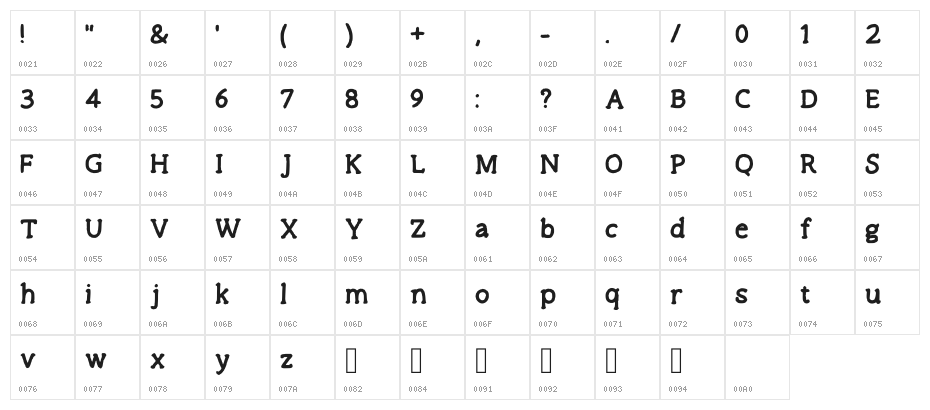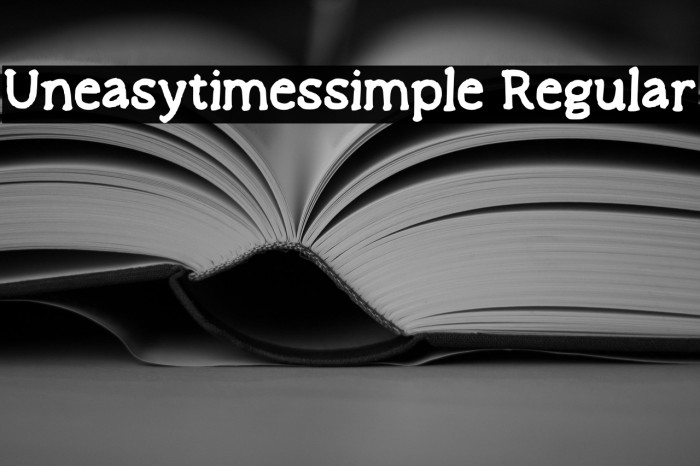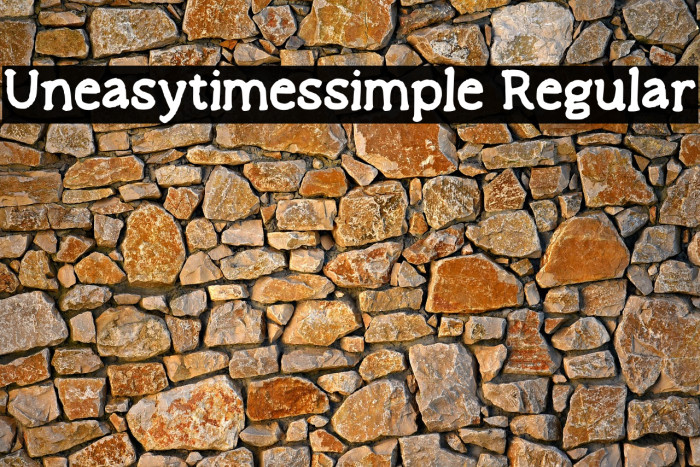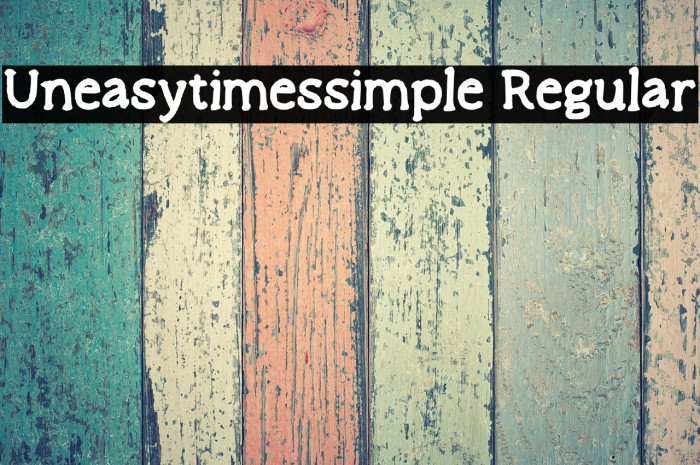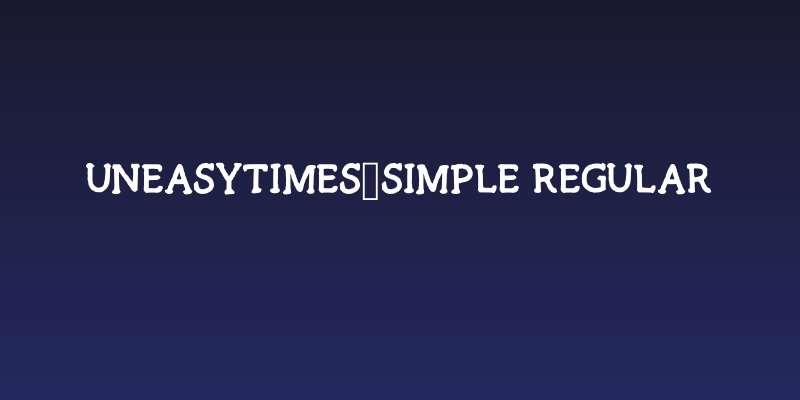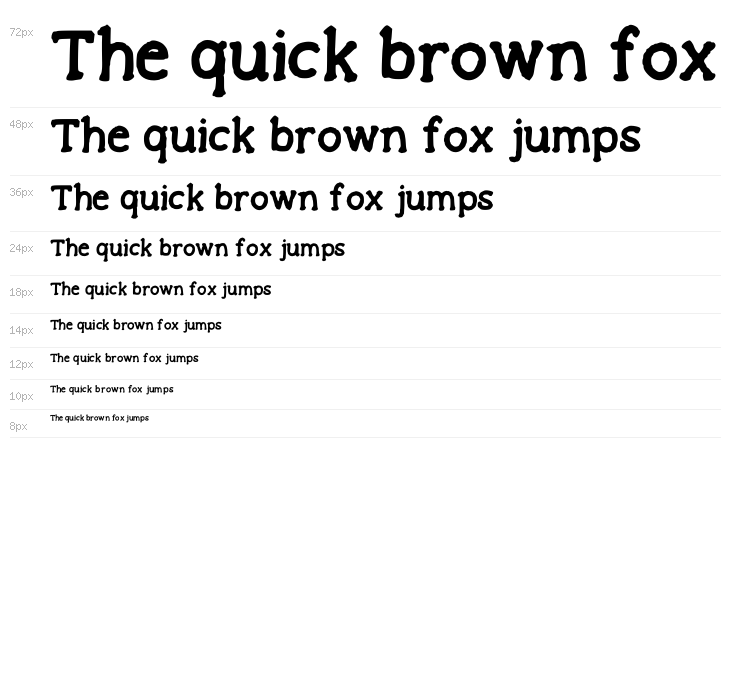
Uneasytimes_simple Regular Font
Uneasytimes_simple Regular Description
This font features a playful and slightly irregular design, with each character exhibiting a hand-drawn quality. The strokes are uneven, giving it a whimsical and informal appearance. The uppercase letters are bold and prominent, while the lowercase letters maintain a consistent style with a slightly smaller size. The numbers and special characters follow the same quirky design, making the font suitable for creative and casual projects. Its unique style adds a touch of personality and charm, making it stand out in any design.
| Proposed Projects | Ideal for children's books, greeting cards, playful branding, and creative posters. |